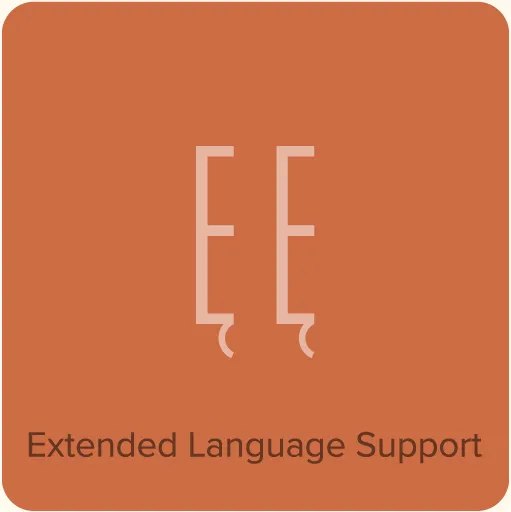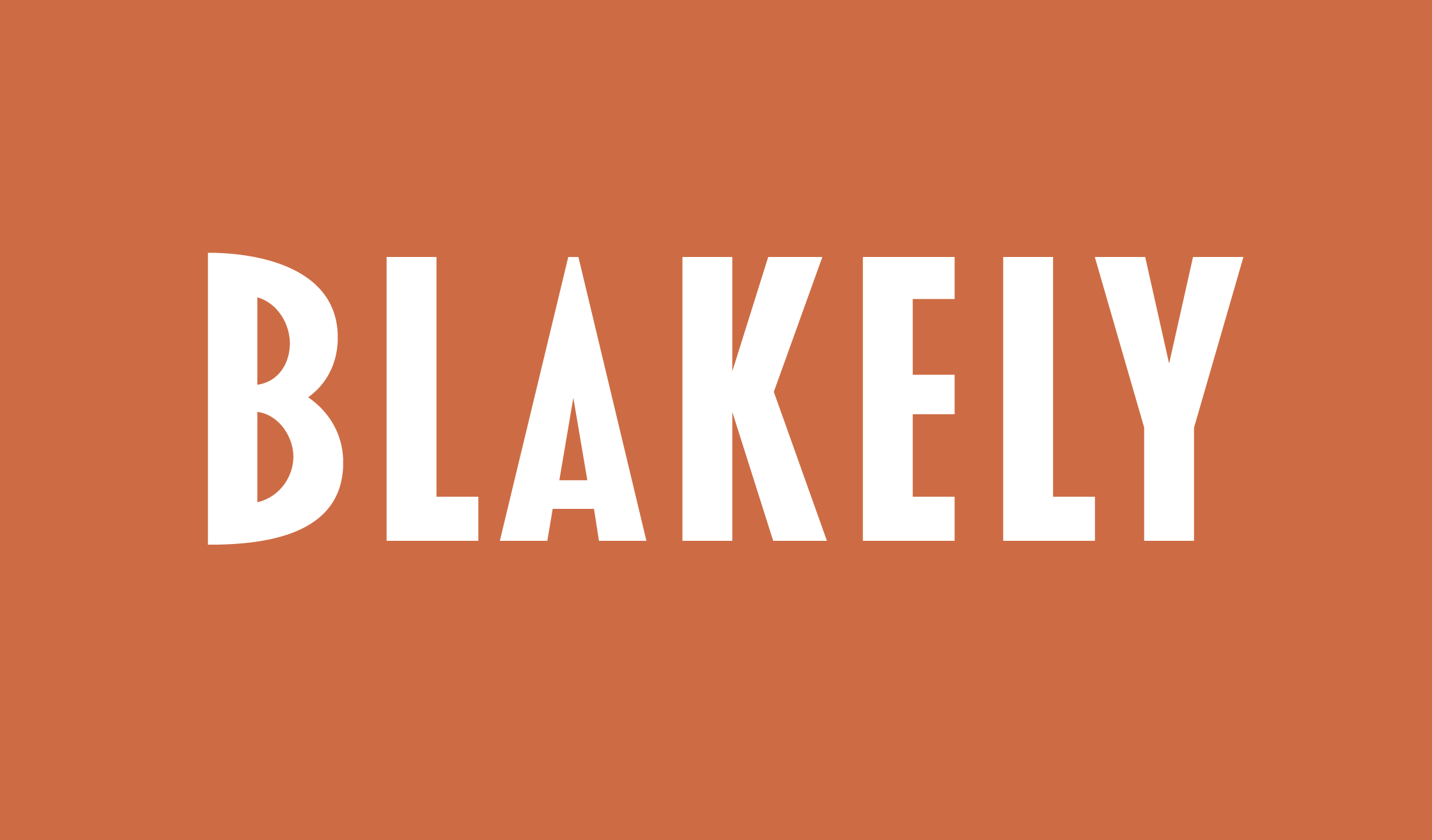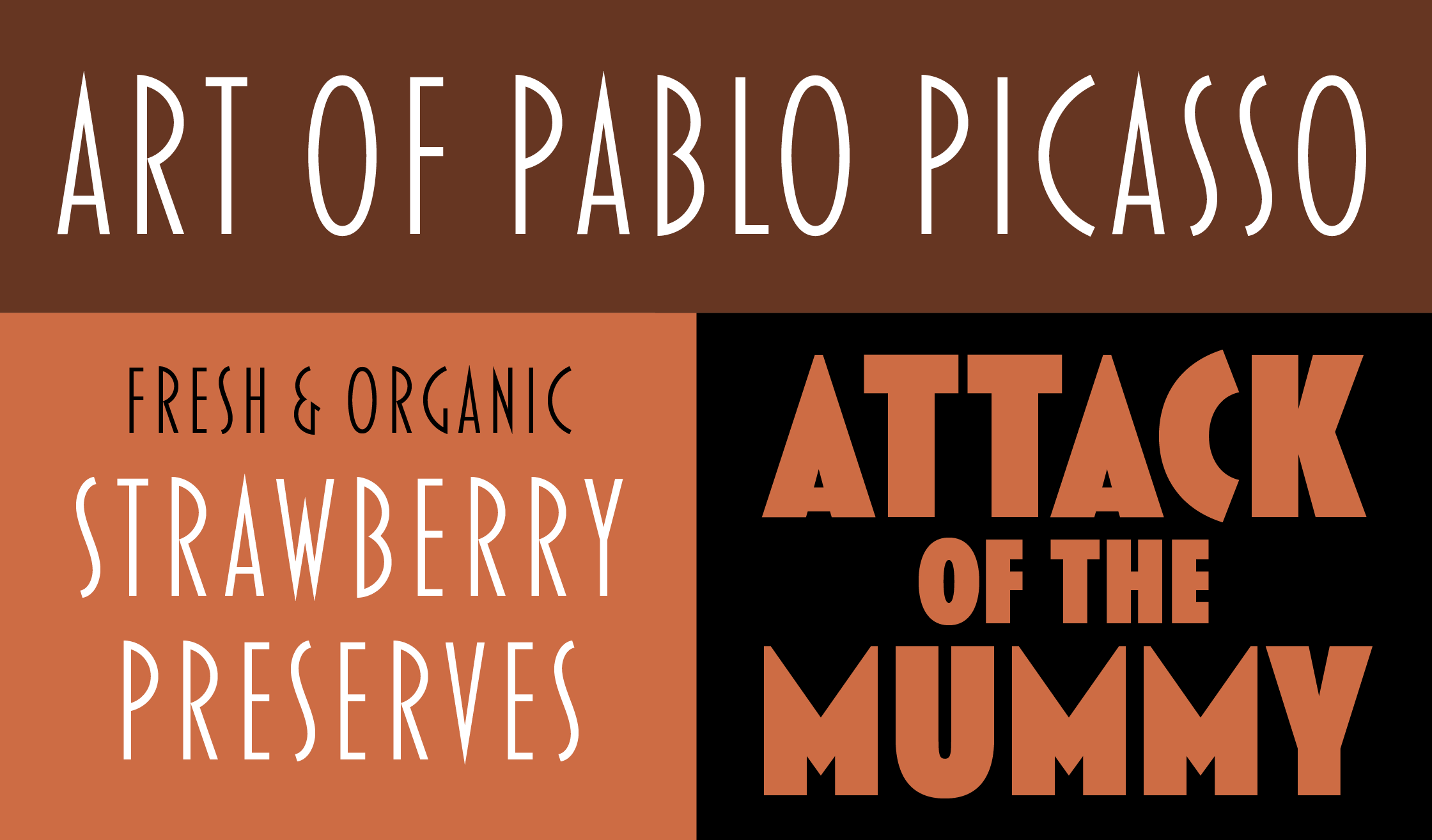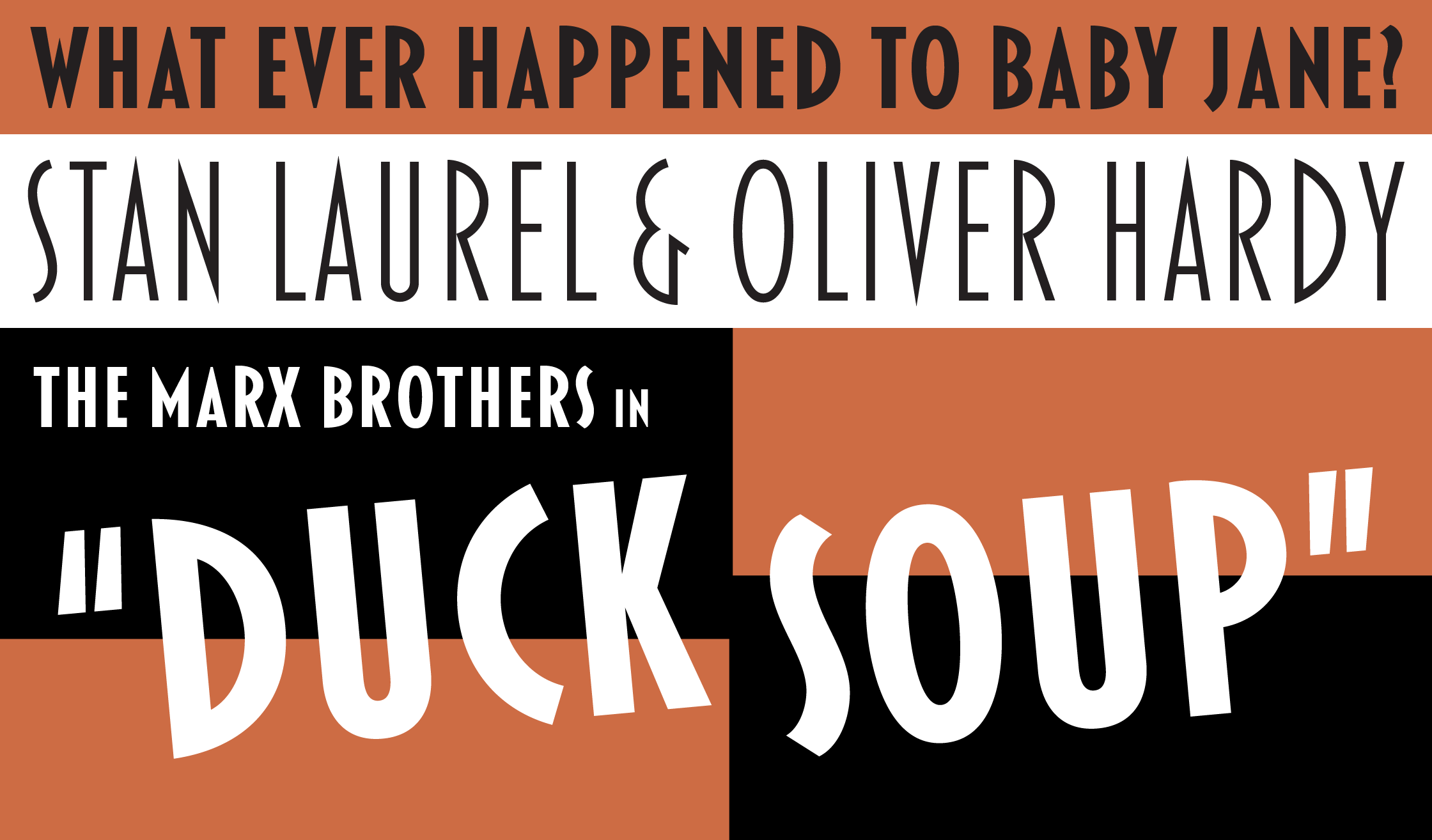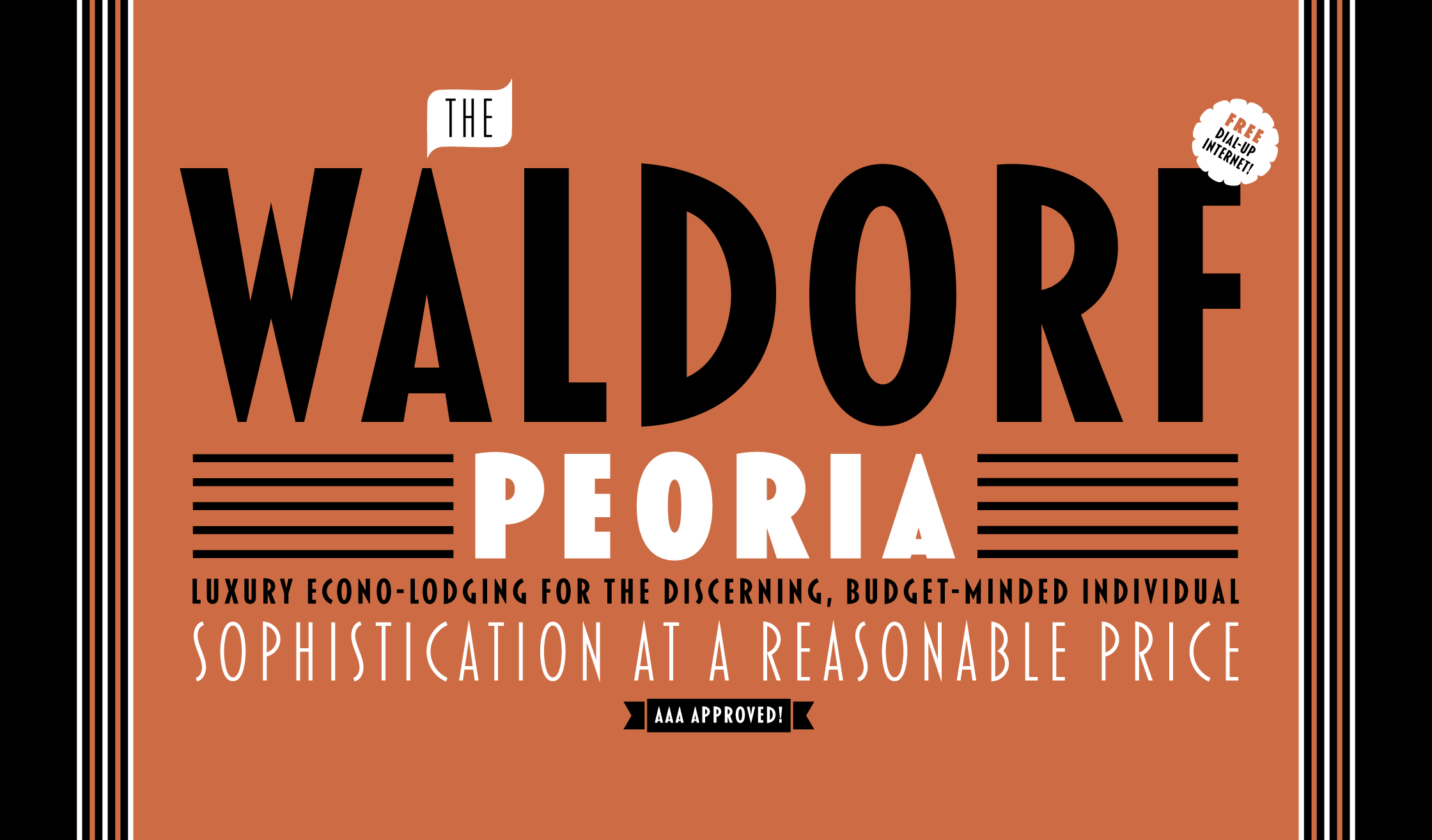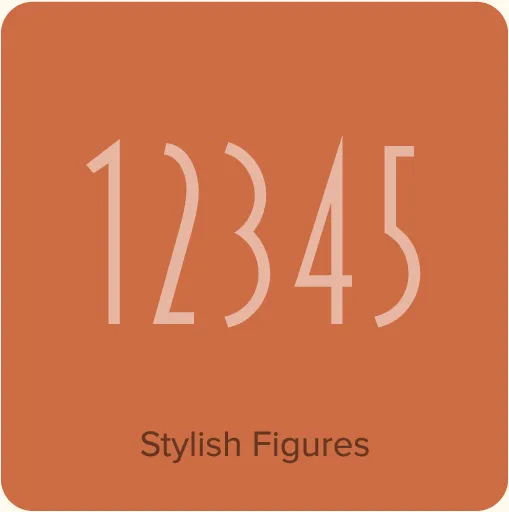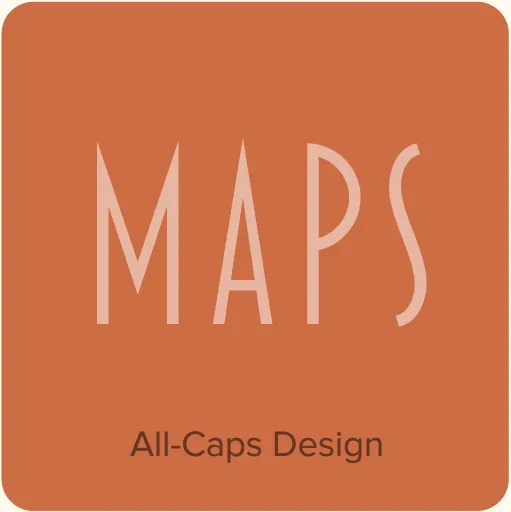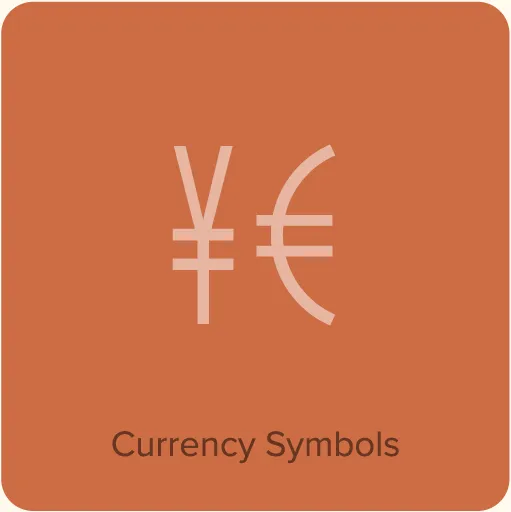
Blakely (2000, 2003) was originally developed as a custom font based on a logo I designed in the early ’90s for the Signals mail order gift catalog. It’s a condensed, sans serif Art Deco design, similar in some ways to Kabel Condensed and Newport, both from around 1930. It’s a caps-only design, and the spacing is optimized for all-caps settings, nearly letter-spaced in the Light weight. I added the Bold and Black weights in 2003, which were in the back of my mind from the beginning.
- Three weights: Light, Bold, and Black.
- All caps design.
- Extended language support for most Latin-based Western and Central European languages.